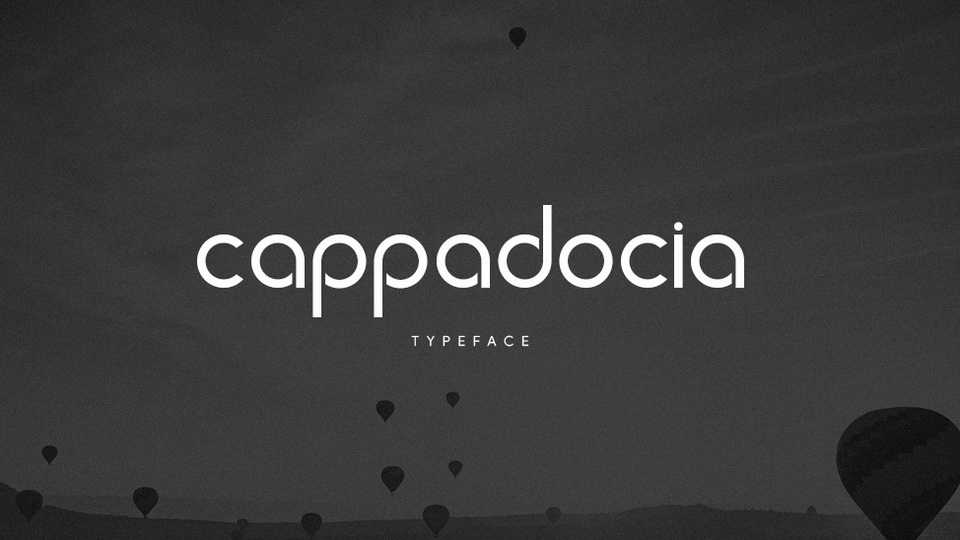
Download Cappadocia font, a modern geometric typeface based on the rounded forms. Suited for display use, advertising and packaging, logos, branding, posters and other projects.
Designer: Mehmet Baytur